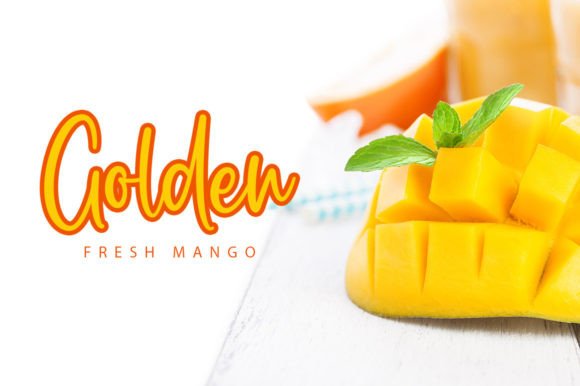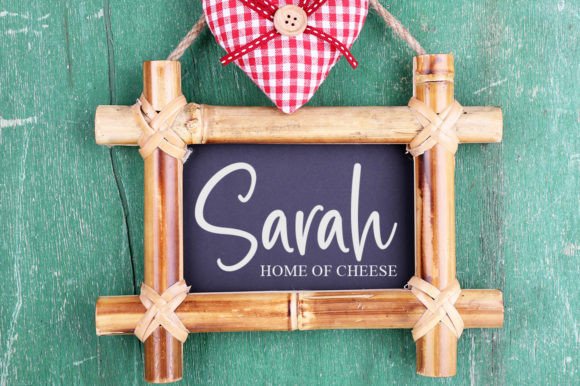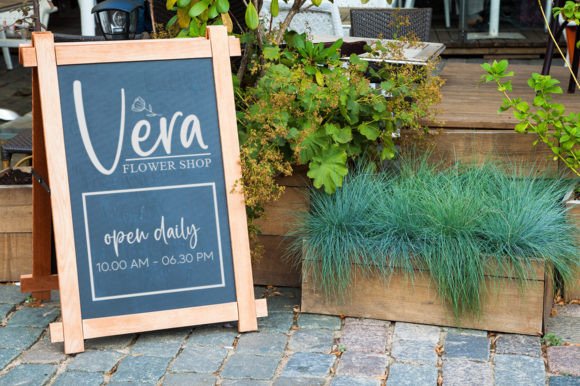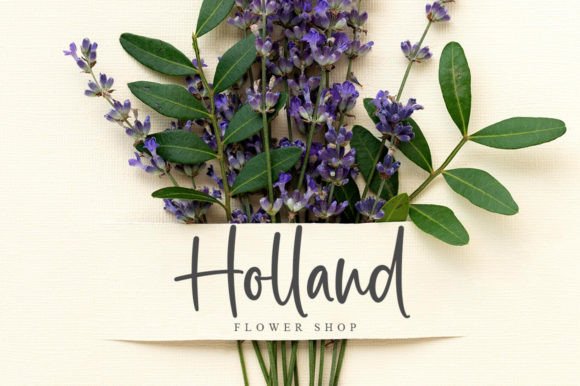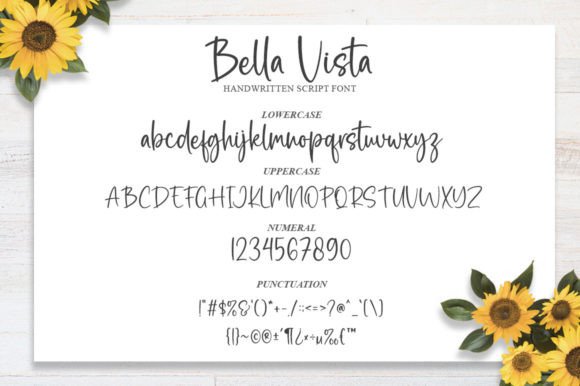
Bella Vista Font: Elevate Your Designs with Elegance and Sophistication
In the world of typography, few fonts capture the essence of elegance and sophistication as beautifully as Bella Vista. This delicate and refined script font is designed to add a touch of luxury to any project, making it a perfect choice for designers and crafters looking to elevate their creations. With its stylish alternates and ligatures, Bella Vista is a versatile font that can be used in a variety of applications, from wedding invitations and branding materials to packaging and digital media.
The Characteristics of Bella Vista Font
Bella Vista is a script font that boasts a range of characteristics that set it apart from other fonts in its category. Its delicate and refined strokes are designed to evoke a sense of sophistication and elegance, making it perfect for projects that require a high level of refinement. The font features stylish alternates and ligatures, which allow designers to add a personal touch to their work and create unique and eye-catching designs.
Key Features of Bella Vista Font
- Delicate and refined strokes: Bella Vista’s strokes are designed to be elegant and refined, making it perfect for projects that require a high level of sophistication.
- Stylish alternates and ligatures: The font features a range of stylish alternates and ligatures, which allow designers to add a personal touch to their work and create unique and eye-catching designs.
- Versatile and adaptable: Bella Vista is a versatile font that can be used in a variety of applications, from wedding invitations and branding materials to packaging and digital media.
- Easy to read and understand: Despite its elegant and refined nature, Bella Vista is a font that is easy to read and understand, making it perfect for projects that require a high level of legibility.
Using Bella Vista Font in Your Designs
Bella Vista is a font that can be used in a variety of design applications, from print to digital media. Here are a few ideas for using Bella Vista in your designs:
- Wedding invitations and stationery: Bella Vista is a perfect font for wedding invitations and stationery, as it adds a touch of elegance and sophistication to any design.
- Branding and packaging: The font’s versatility and adaptability make it a great choice for branding and packaging projects, where it’s essential to create a unique and eye-catching design.
- Digital media: Bella Vista can be used in digital media, such as social media graphics, blog posts, and website designs, to add a touch of elegance and sophistication.
Tips for Getting the Most Out of Bella Vista Font
To get the most out of Bella Vista, here are a few tips to keep in mind:
- Use it sparingly: Bella Vista is a font that is best used sparingly, as it can be overwhelming if used excessively.
- Pair it with a sans-serif font: Pairing Bella Vista with a sans-serif font can create a beautiful contrast and add visual interest to your design.
- Experiment with different colors and textures: Bella Vista can be used in a variety of colors and textures, so don’t be afraid to experiment and find the perfect combination for your design.
Bella Vista is a beautiful and elegant script font that is perfect for designers and crafters looking to add a touch of sophistication and elegance to their projects. With its stylish alternates and ligatures, versatile and adaptable nature, and easy-to-read strokes, Bella Vista is a font that can be used in a variety of applications, from wedding invitations and branding materials to packaging and digital media. By following the tips outlined above, you can get the most out of Bella Vista and create stunning designs that showcase your creativity and skill.